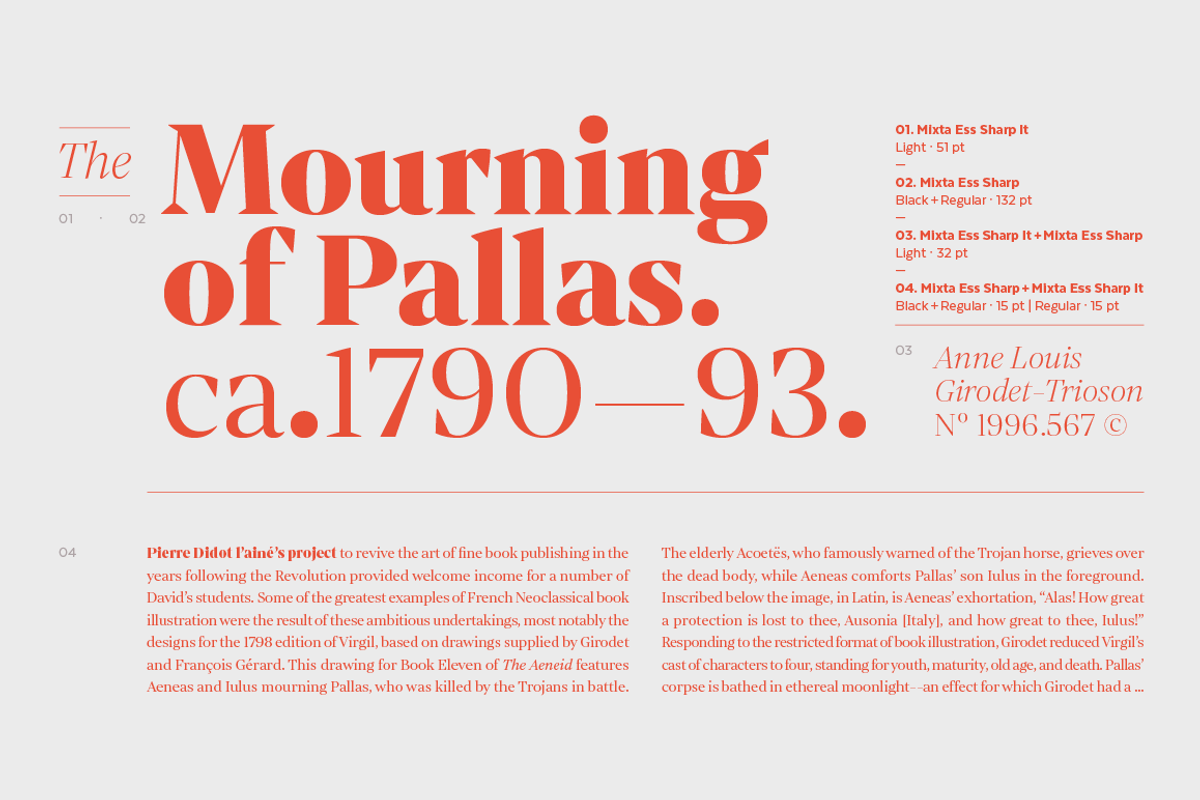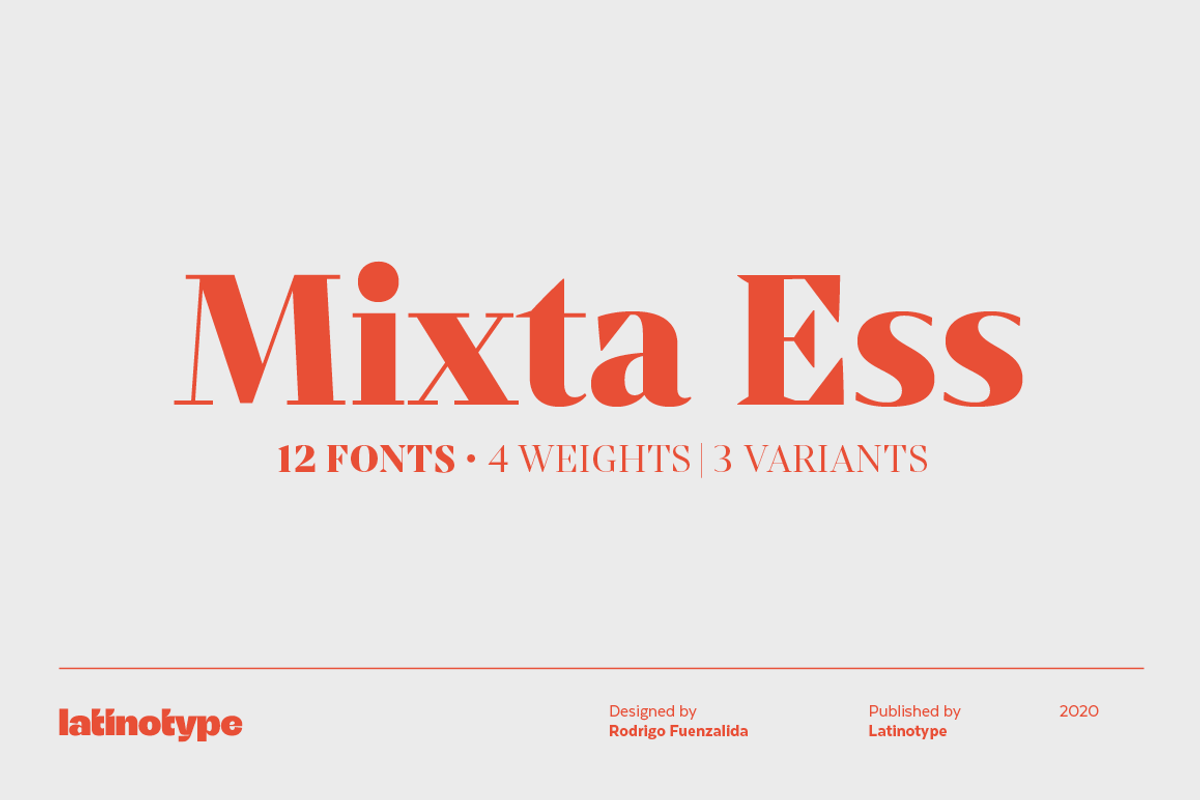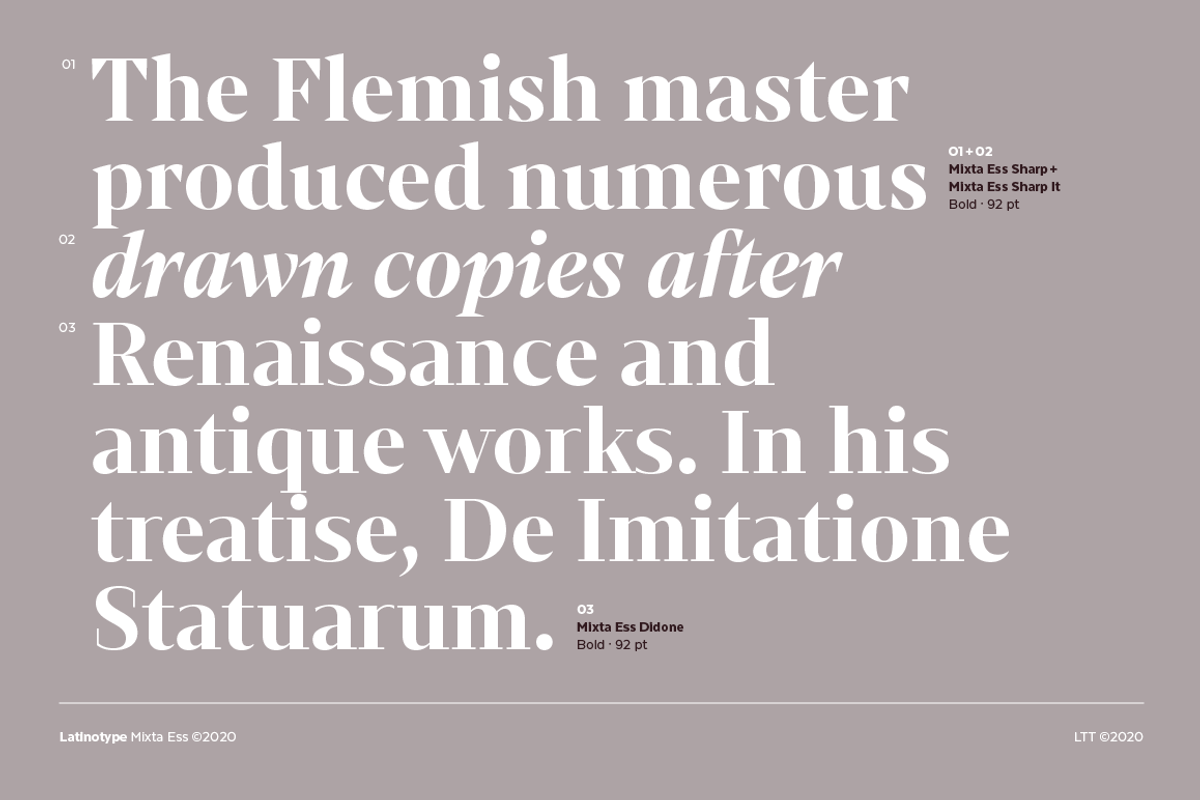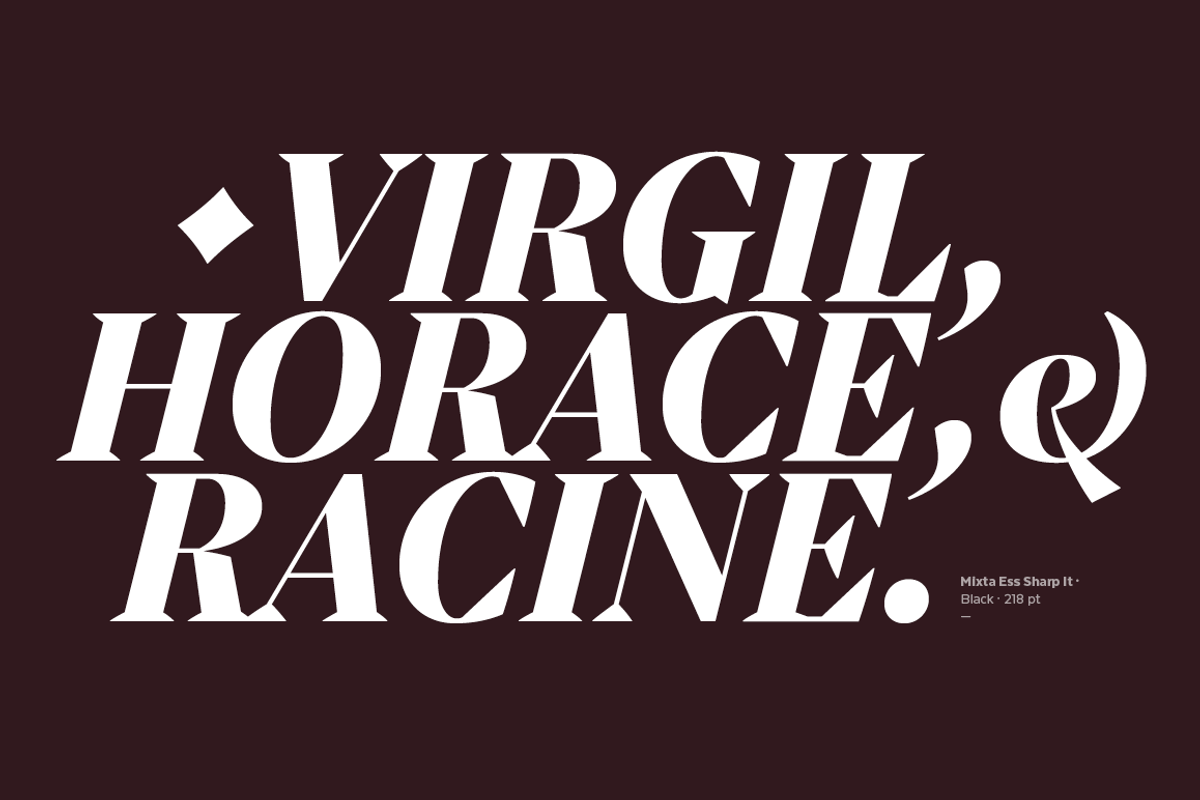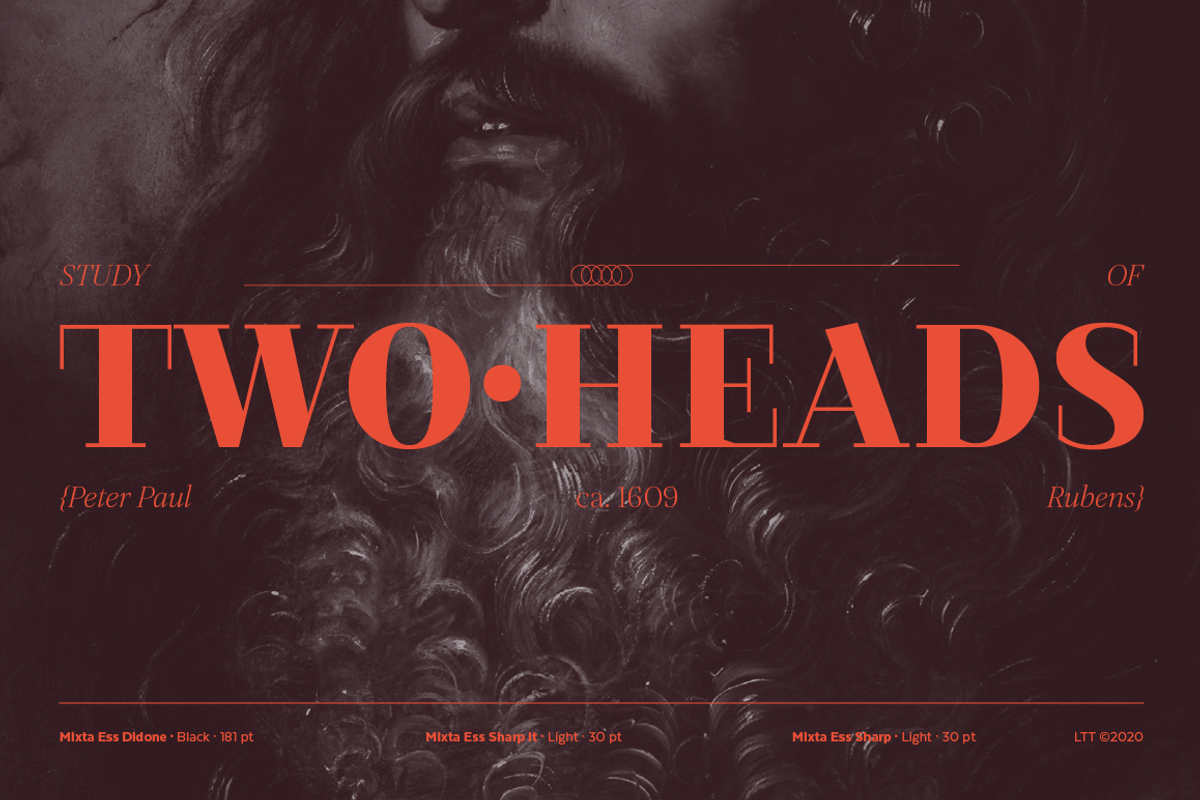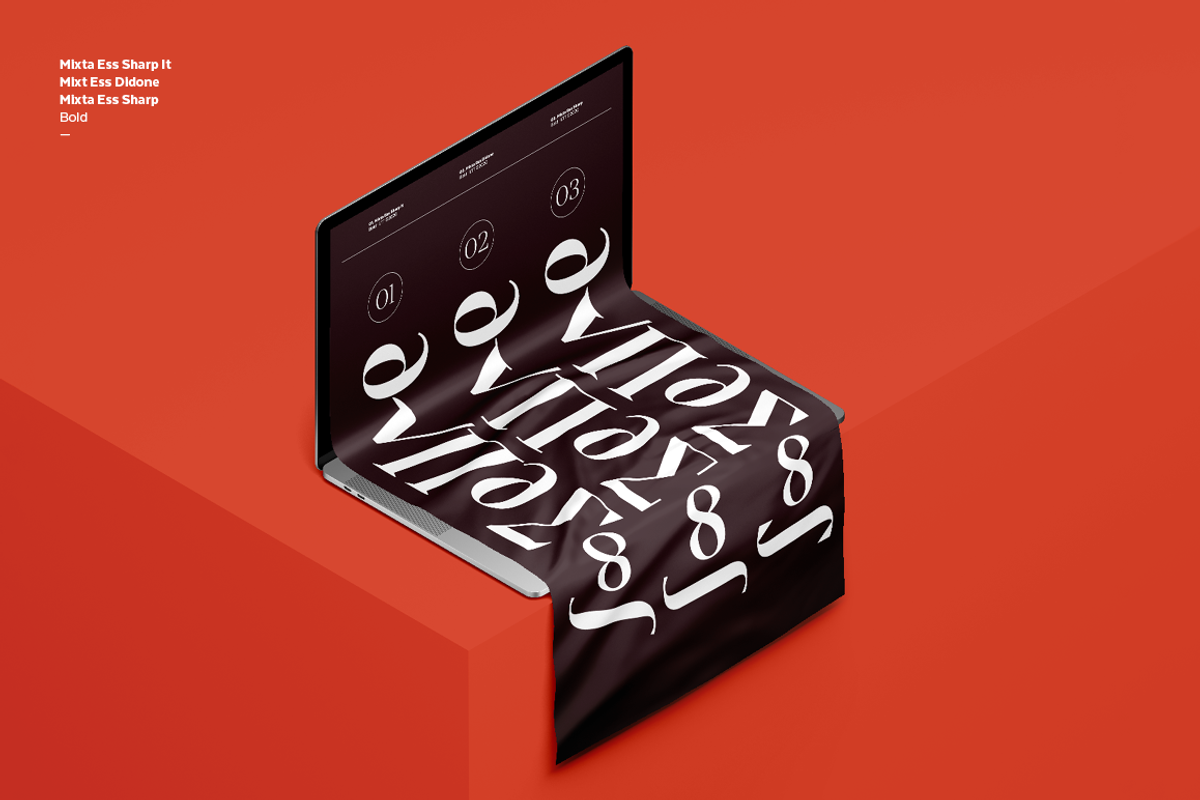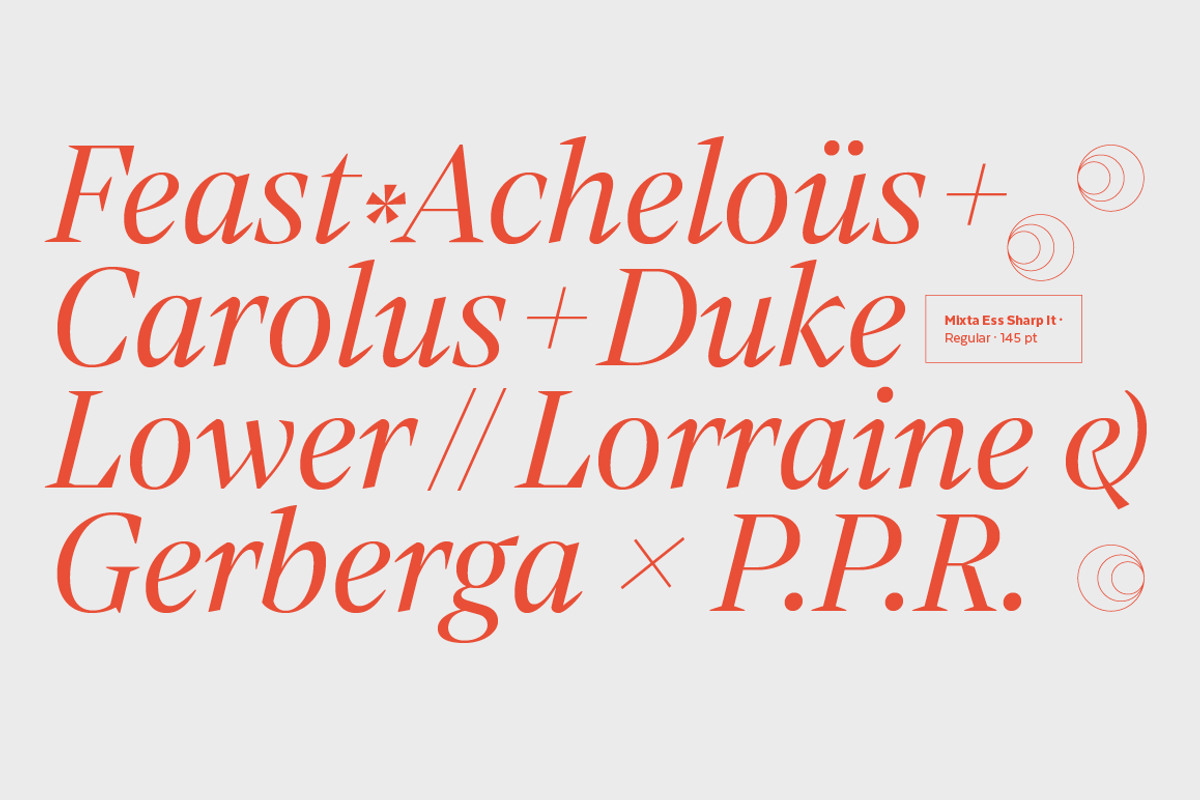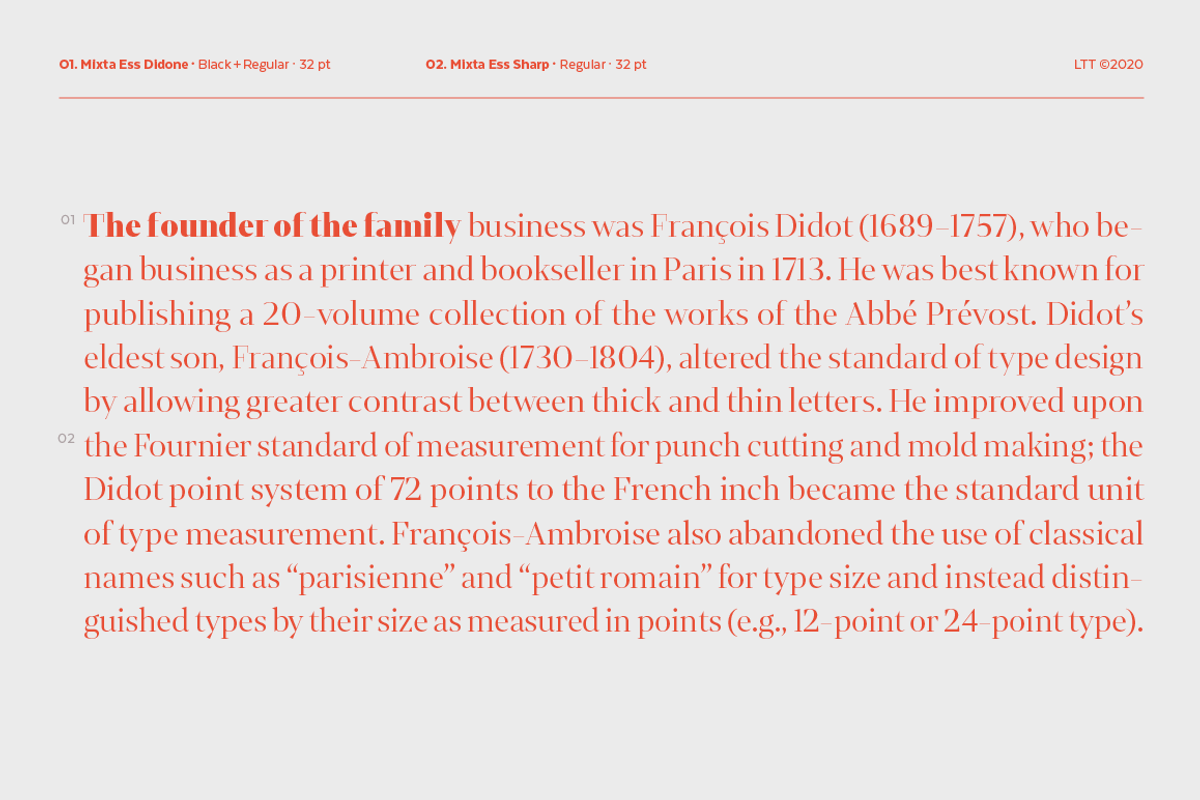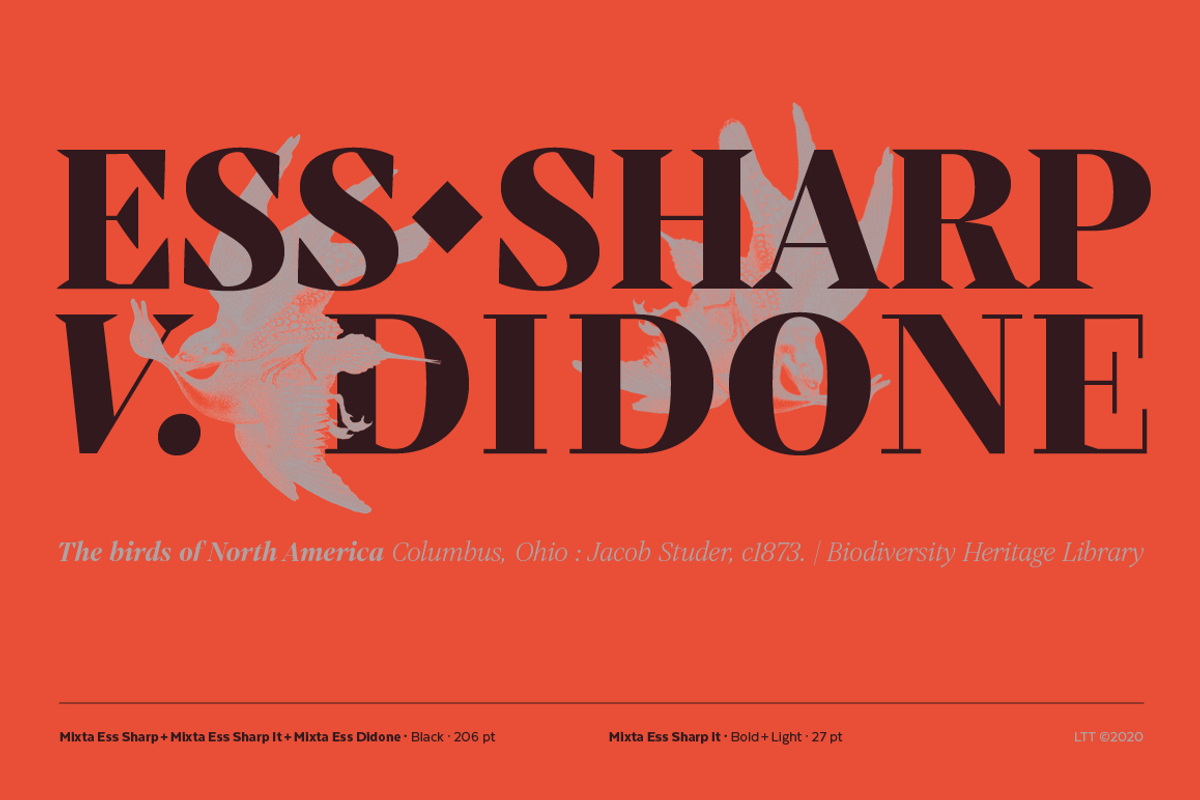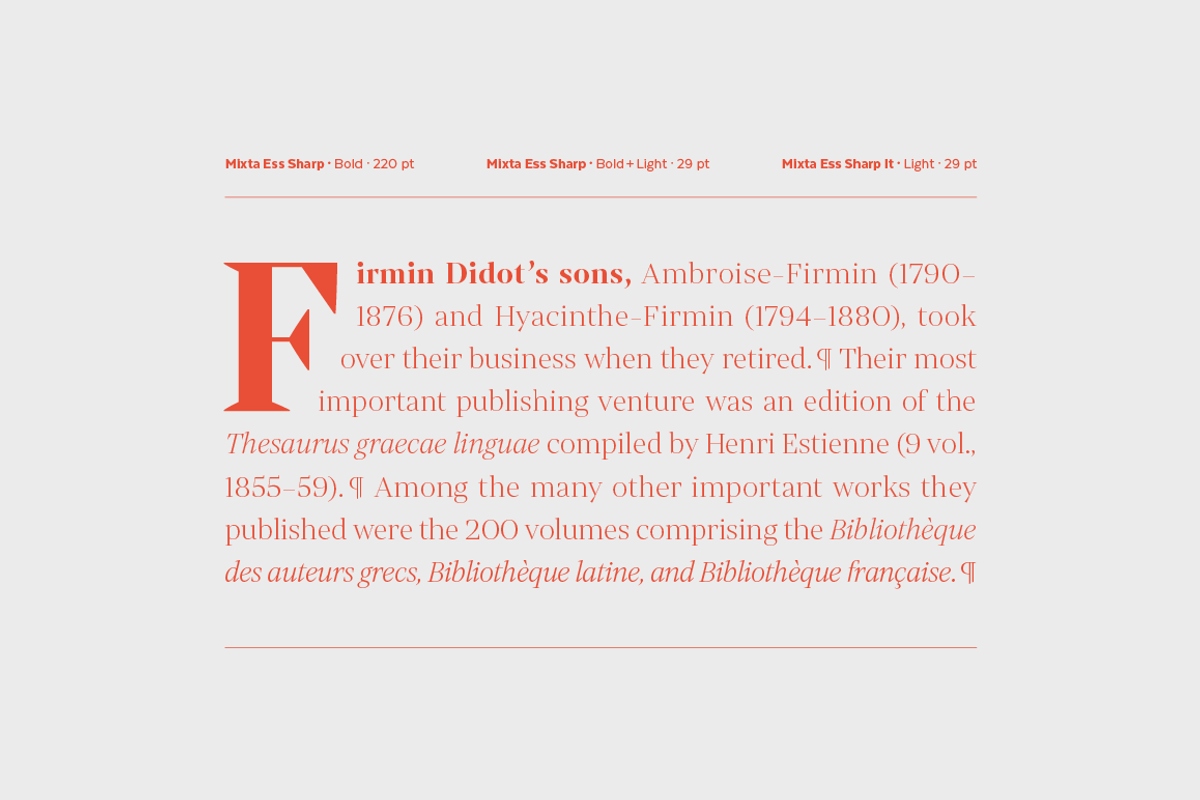
Mixta Essential
Mixta Essential is a contemporary serif typeface with characteristic and defined features. This font was inspired by the idea of mixing different types of terminals in order to give the font a singular appearance. Its design is composed of diverse styles such as Didone and classic typefaces as well as current font trends.
Mixta Essential was specially designed for branding, advertising, TV and social media.